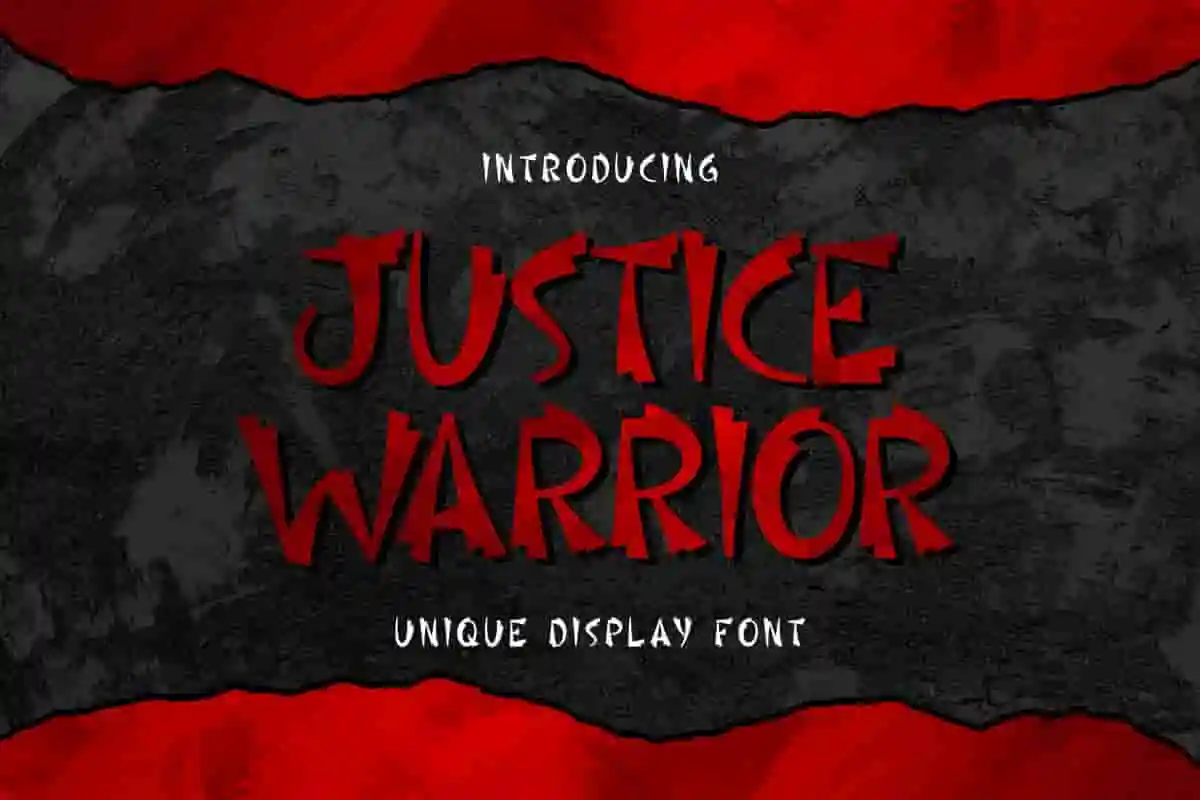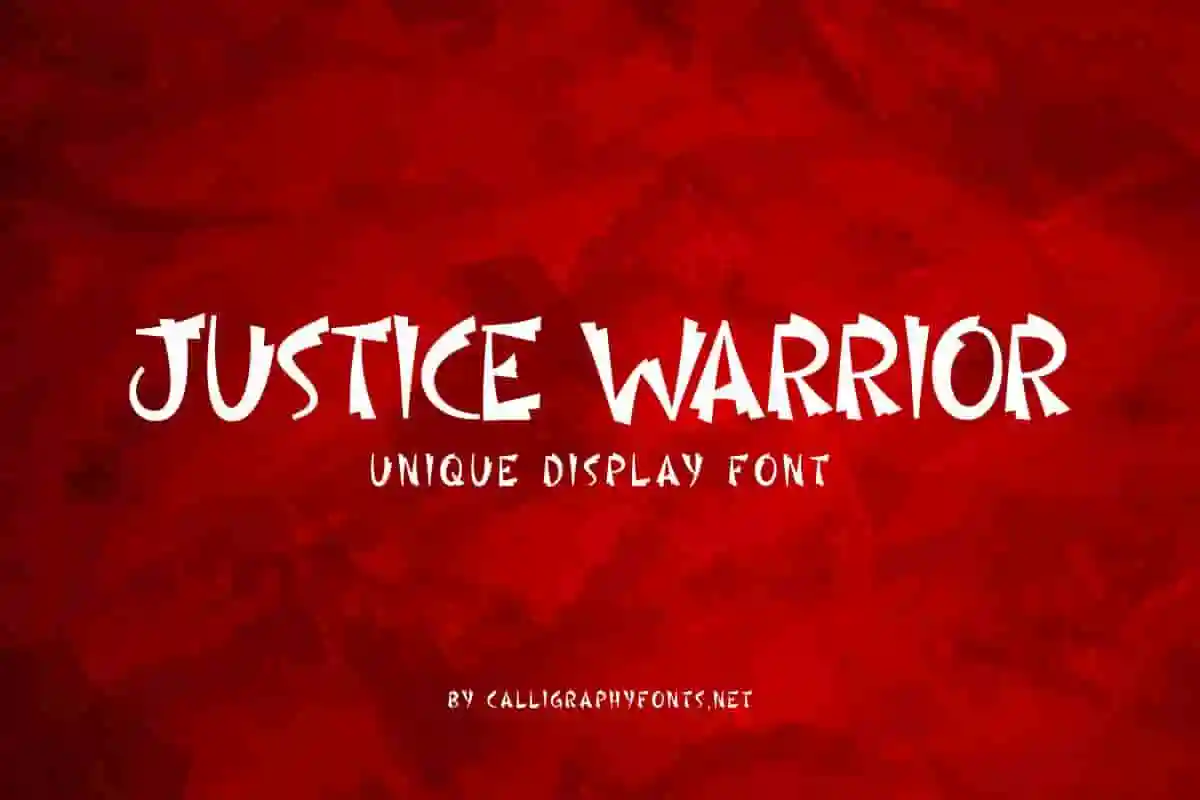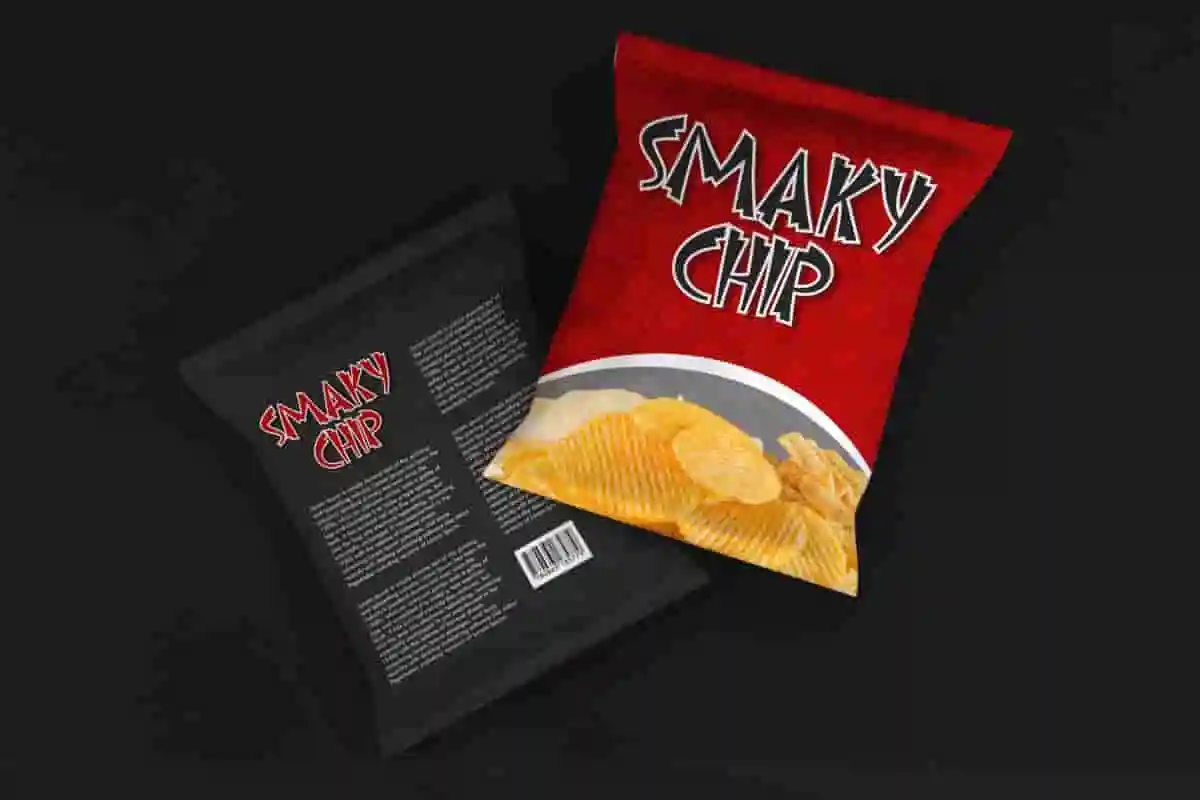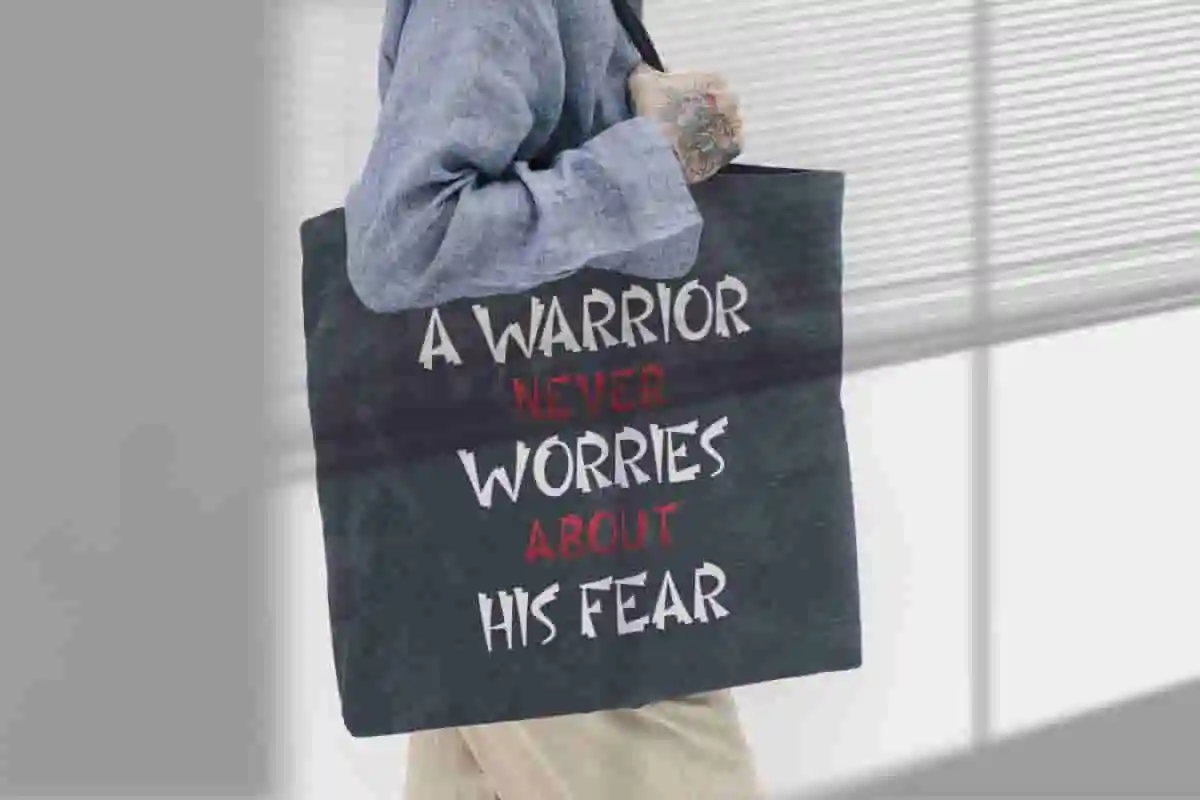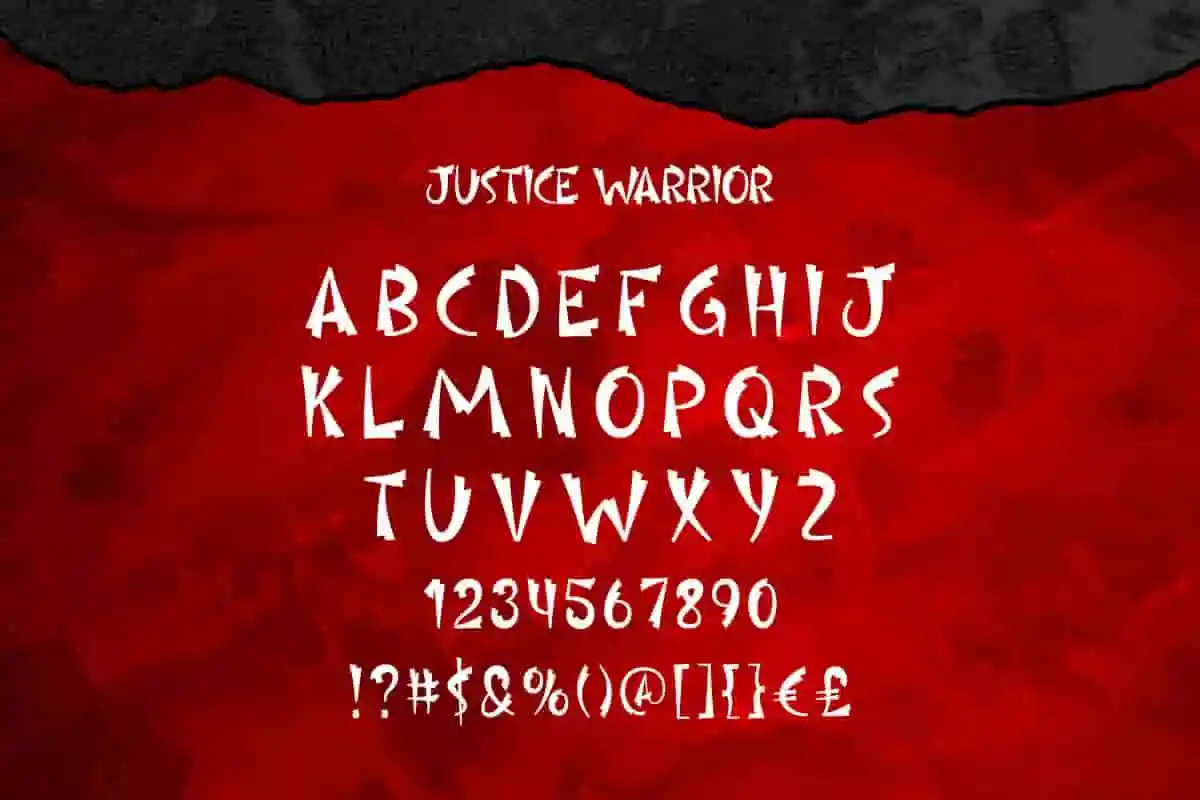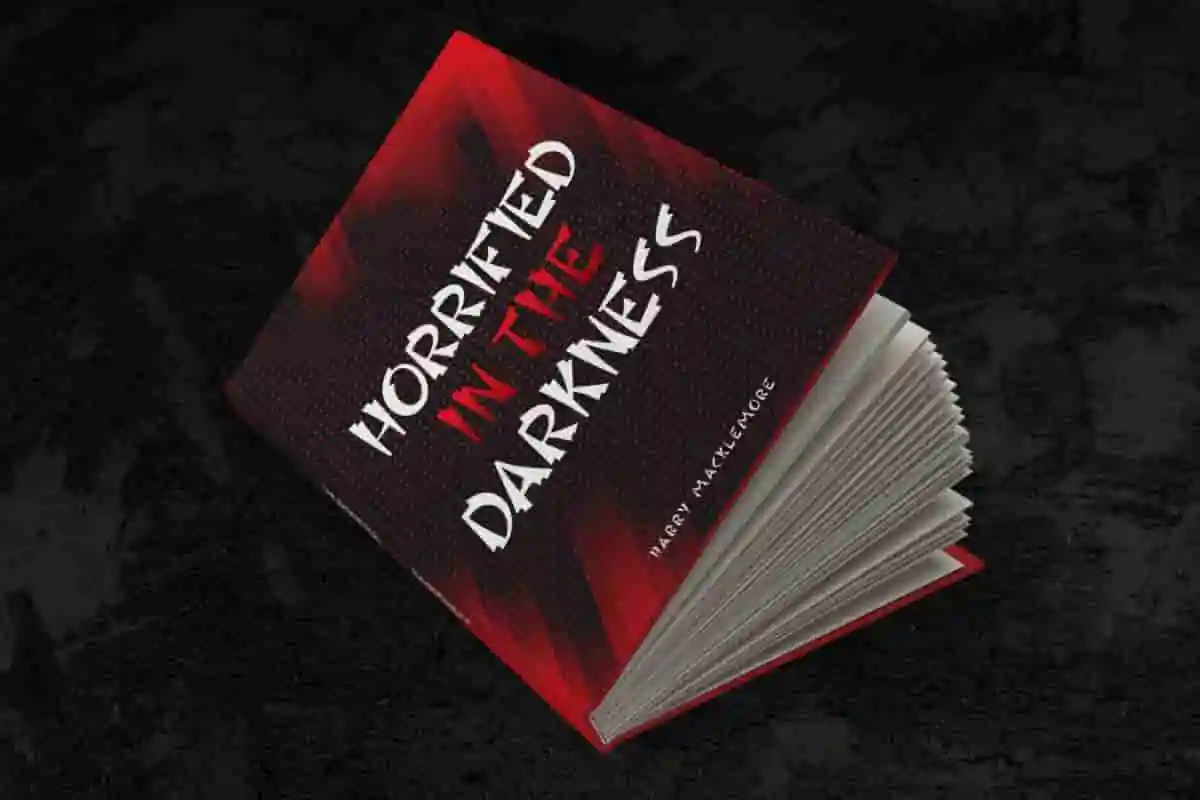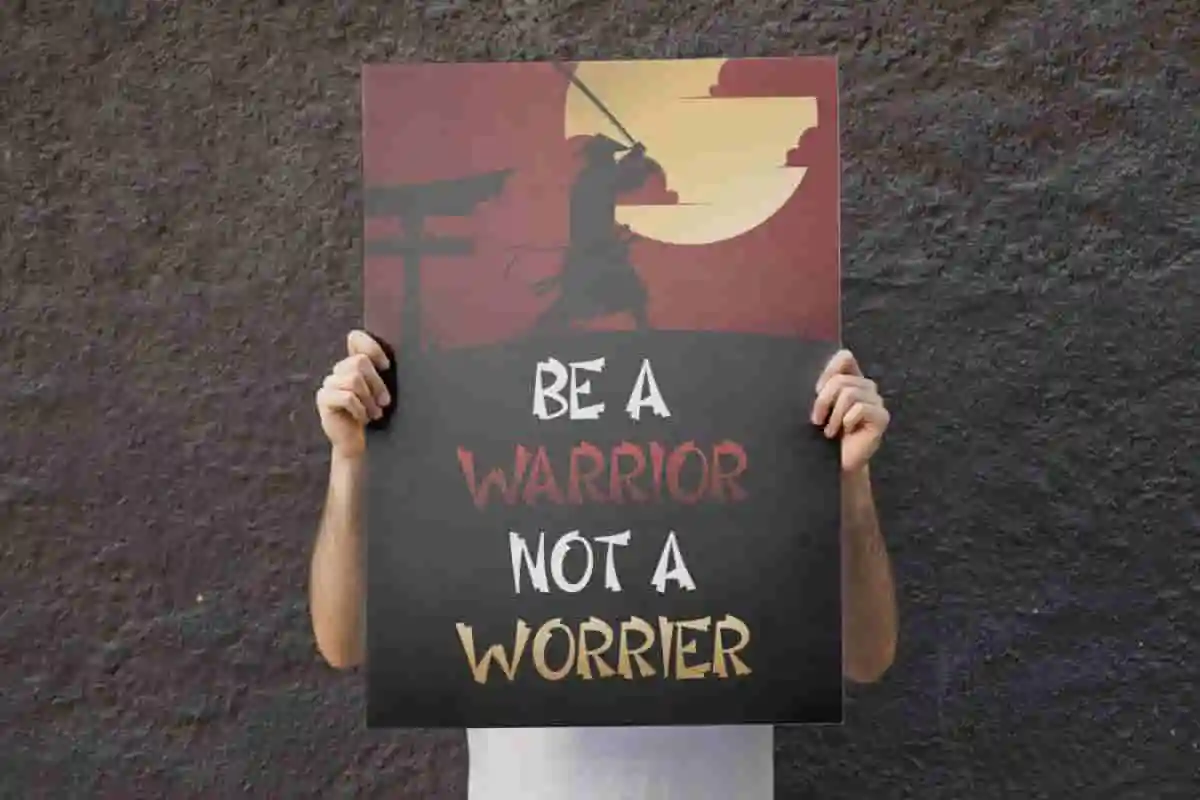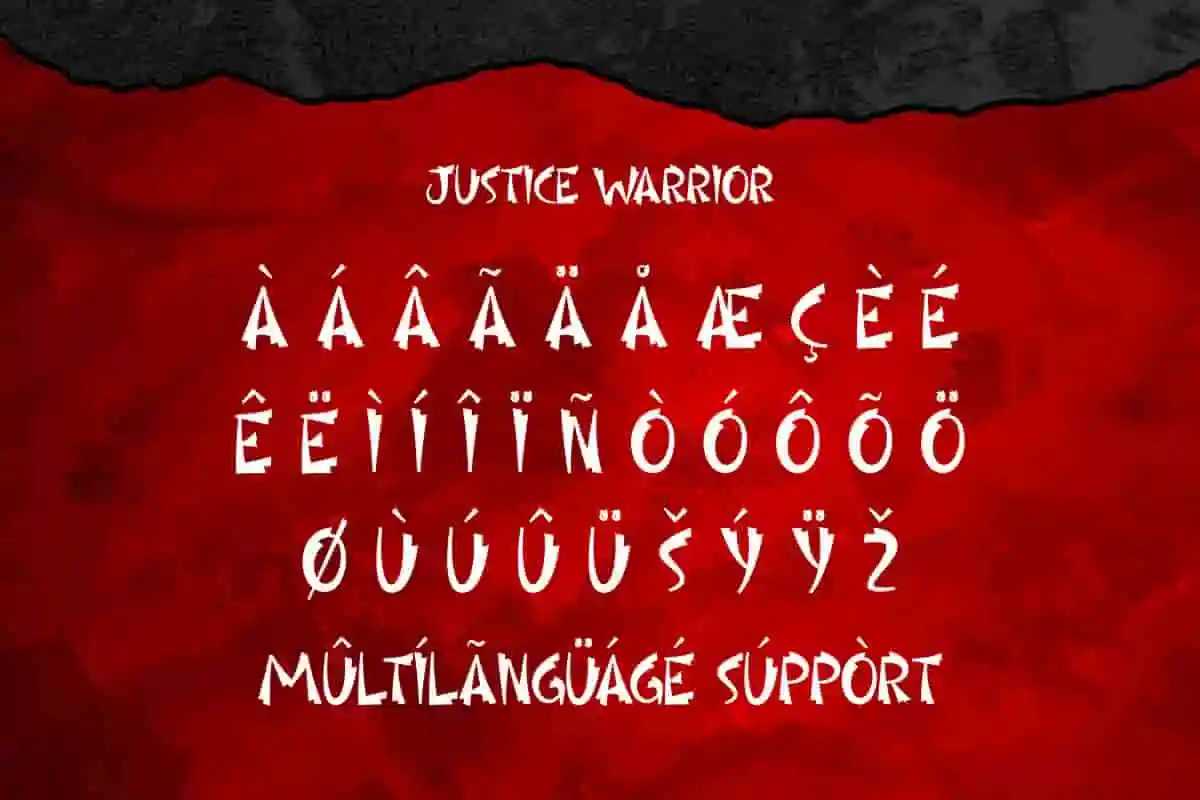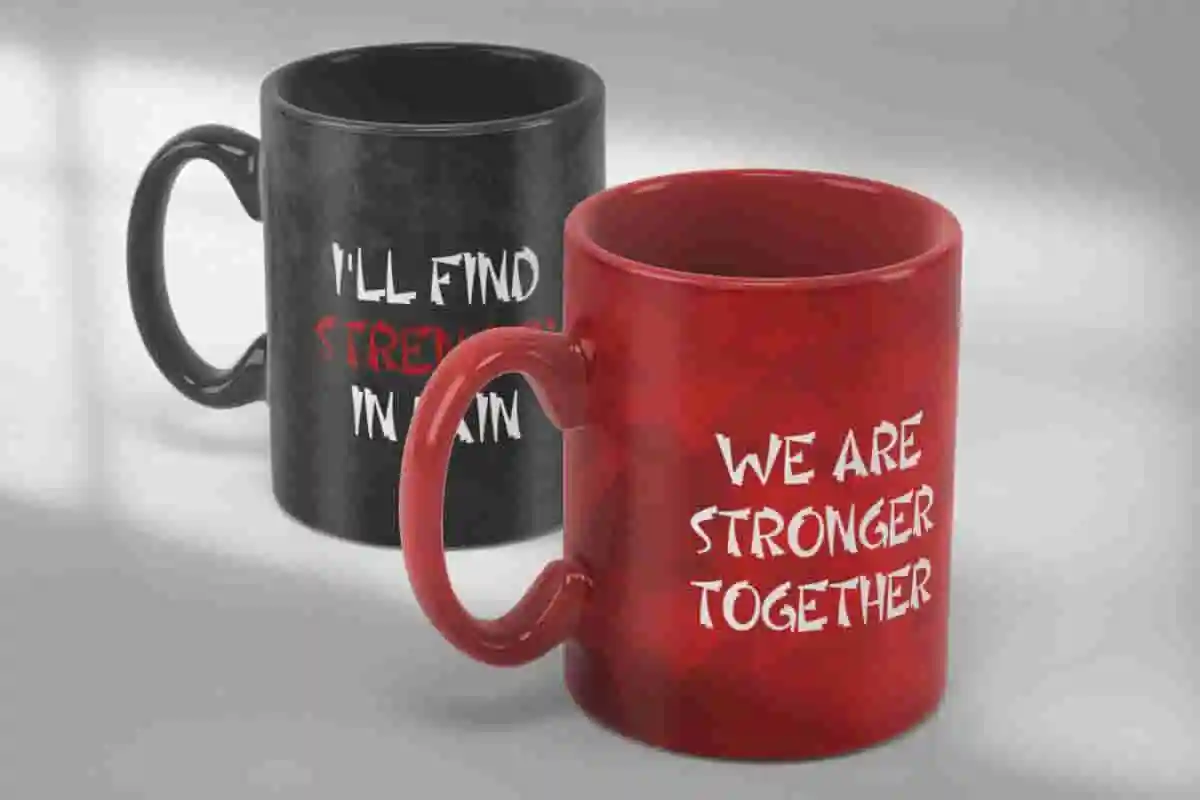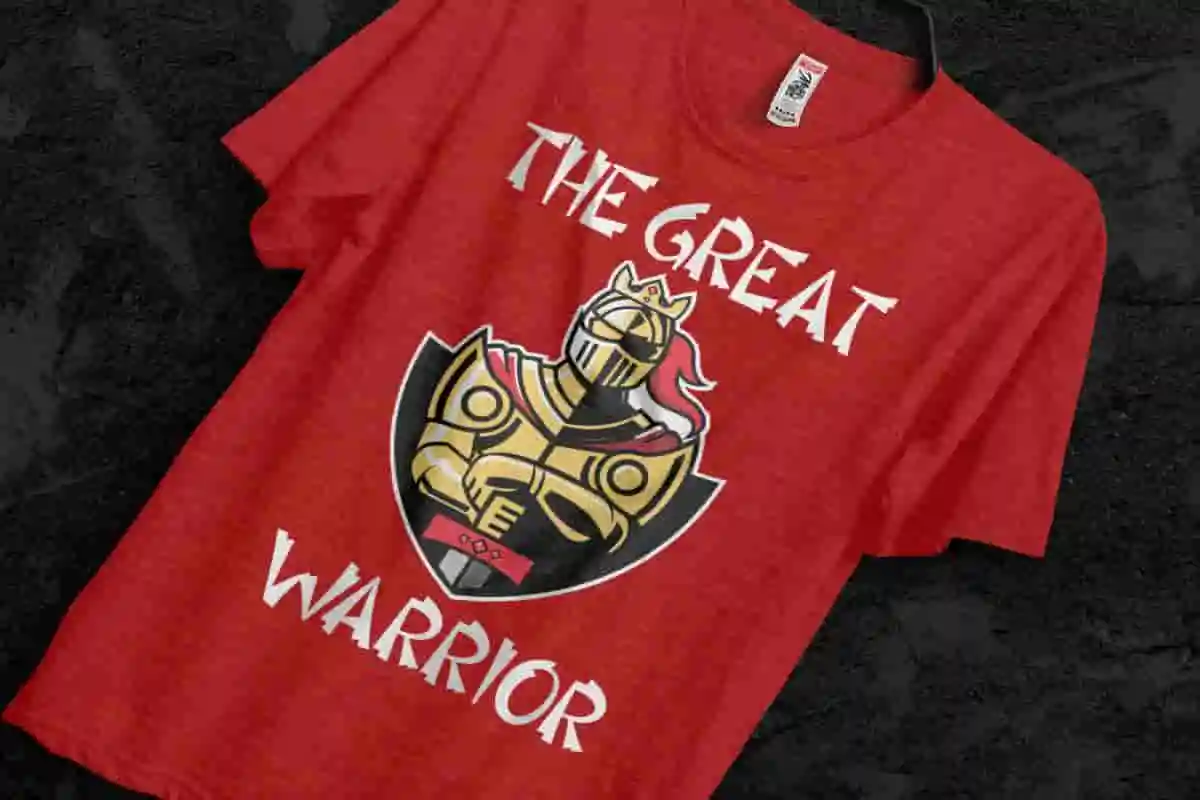
Justice Warrior Display Font
Justice Warrior Font is an action display font with horror, sports and gaming theme style. The font will be great for brands, energy drink, games, festival, horror fiction, movie poster, snack industry, or anything that requires a stronger style of fantasy!
Justice Warrior Font is an action display font with horror fight theme, created by Calligraphy Fonts. This letter has an irregular shape like the part that was hit and then broken making it distinct and stand out would be perfect for your creative projects such as, billboard, clothing brand, headline, mug design, poster, printed tote bag, snack packaging, stationery, etc.
Introducing Justice Warrior, a bold and fearless display font designed for high-impact design. With its powerful letterforms and sharp edges, this typeface is made for creators who want to send a strong, confident message. Step into the battlefield of bold design with Justice Warrior, a striking display font forged for attention. Designed with strength, confidence, and precision in mind, this typeface is your ultimate weapon for powerful visuals.
Unleash power and authority with Justice Warrior, a dynamic display font crafted for designs that demand attention. Its sharp edges and sturdy letterforms make it perfect for projects that need to convey strength, courage, and determination. a bold and aggressive display font made to capture attention and communicate strength.
Introducing Justice Warrior, a fierce and powerful display font designed for creators who want their designs to make a strong statement. With bold, sharp letterforms and an intense, rugged style, Justice Warrior is the perfect font for projects that demand confidence, energy, and impact.
Whether you’re designing action movie posters, esports logos, streetwear apparel, or bold event flyers, Justice Warrior brings a heroic and fearless vibe that captures attention instantly.
- Sharp, impactful all-caps letters
- Perfect for esports
- Streetwear designs that demand attention
Justice Warrior Font will be great for any industry including : apparel, fashion, fight, food & drink brand, homeware, movie, restaurant, sport, writer, and everything that requires a bold look with a great warrior spirit. Perfectly crafted so as to create writing that adds an extraordinary impression to every design created, it is easy to read with a stunning display.
Justice Warrior Font comes with a full set of Uppercase and Lowercase Basic Characters, Number, a large range of Punctuation and Symbol, also supports multilingual characters. Ready to use both on Windows machine or Mac with simple installations. It’s tested to work well in the Adobe Apps (Illustrator, Adobe InDesign, Adobe Photoshop) CorelDraw, and others. PUA Encode Characters means you can access all the glyphs and other characters easily – Fully accessible without additional design software.